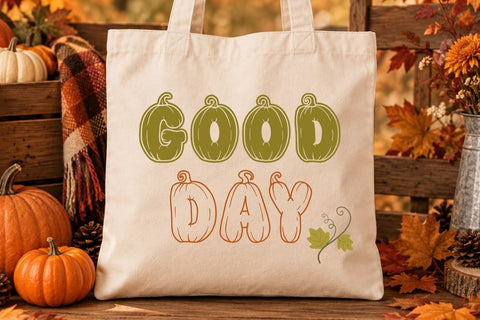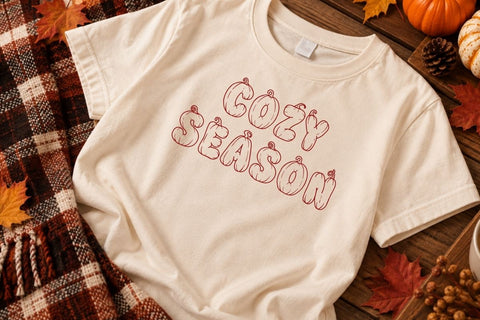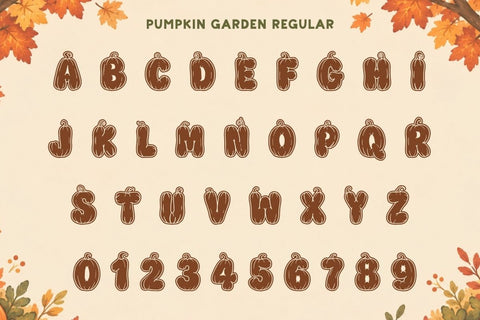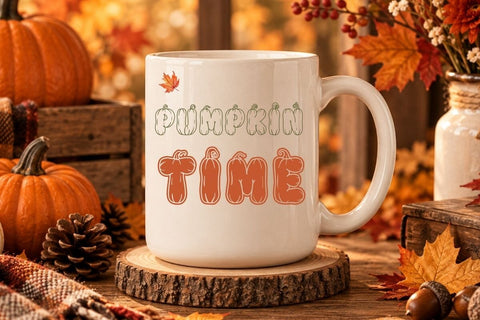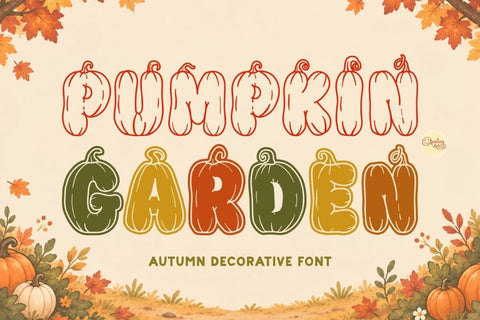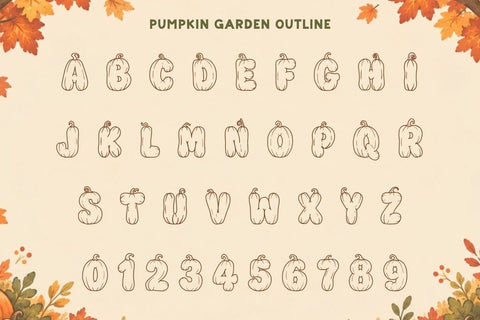
Pumpkin Garden - Display Font for Fall Crafts
Pumpkin Garden is a cute autumn decorative font featuring pumpkin-style letters, curly vine stems, sketch-style line details, and two font styles: regular and outline. The look is cozy, seasonal, and easy to use for fall-themed craft designs.